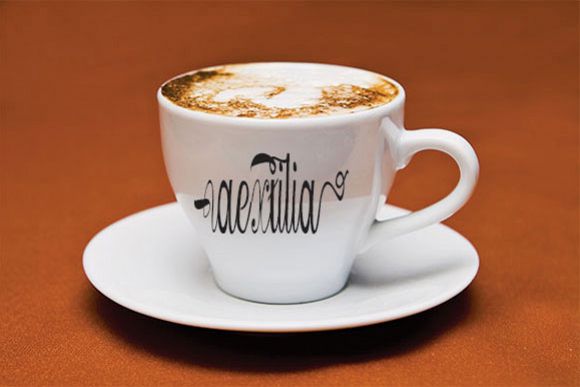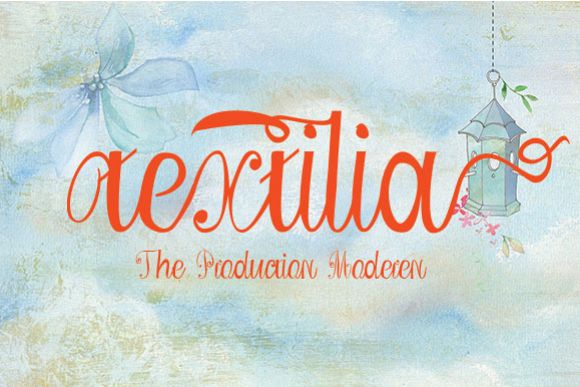
Textilia Script
Textilia Script Font
is a hand calligraphy, modern and clasik, calligraphy bumpy, which was created to meet the needs of the next design project. Textilia, can be used for the purpose. such as title, signature, logo, correspondence, wedding invitations, letterhead, signage, labels, newsletters, posters, badges, etc . Textilia features 361+ glyphs and 142 alternative characters. including initial and terminal letters, alternates, ligatures, and multiple language support.